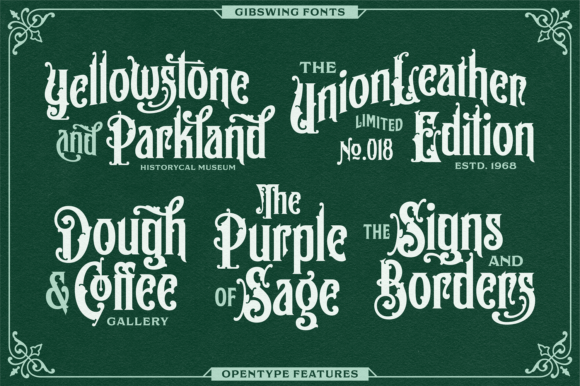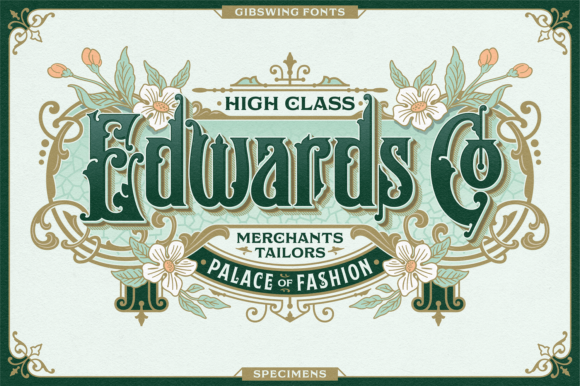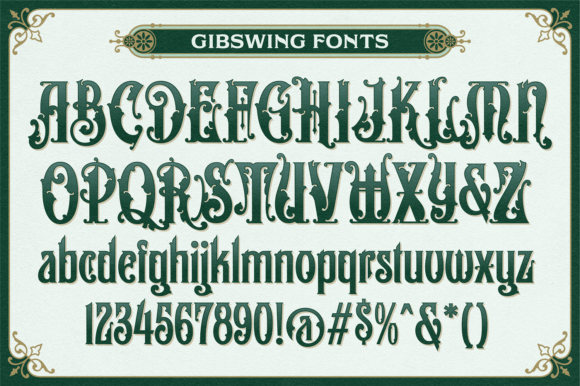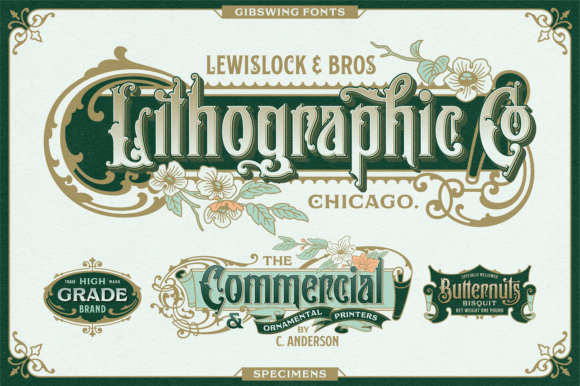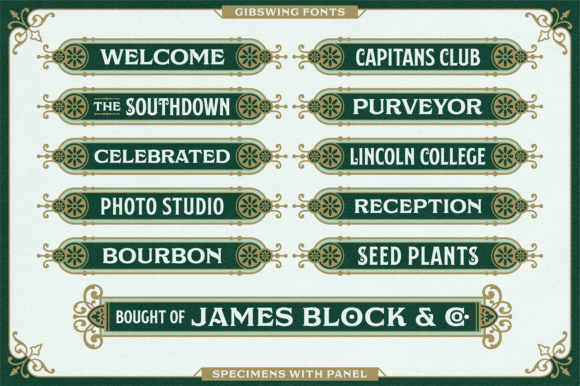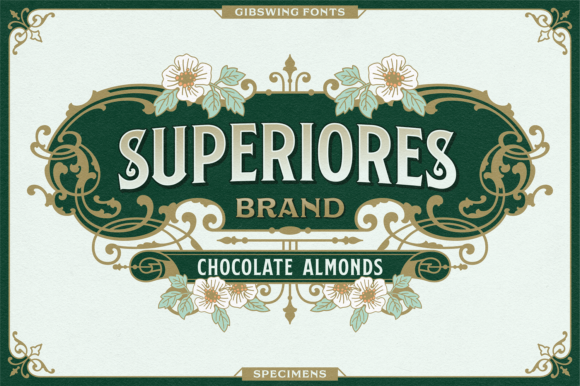
Introduction to Gibswing Font
Gibswing is a cool, bold and thick lettered display font.
It is PUA encoded which means you can access all of the glyphs and swashes with ease Add it confidently to your favorite creations and let yourself be amazed by the outcome generated.